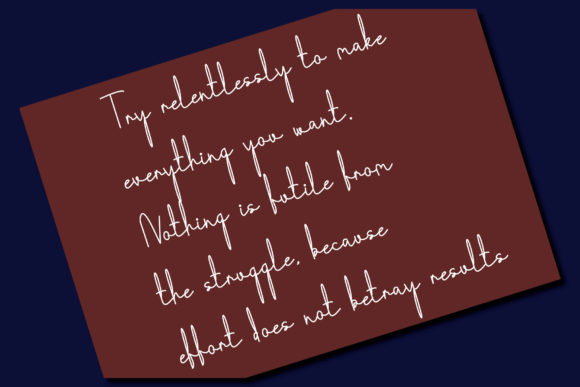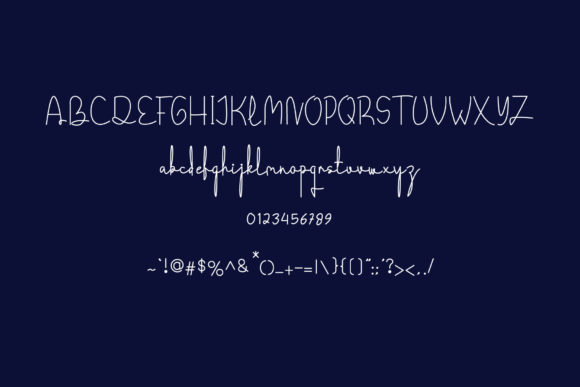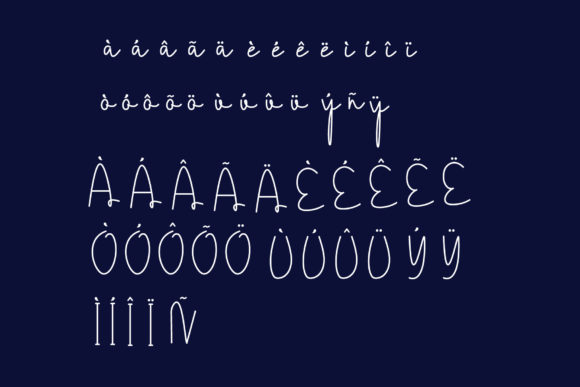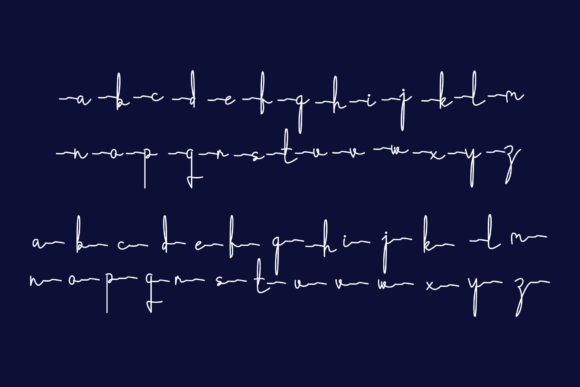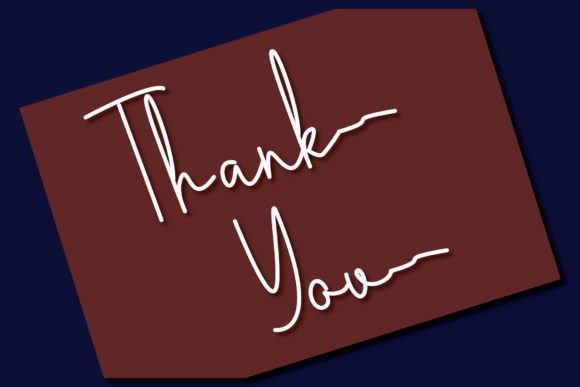
Introduction to Saved Font
Have you ever been working on a creative project, pouring your heart and soul into it, only to find the perfect font to tie everything together? That’s exactly what happened to me when I stumbled upon the Saved Font. Its unique handwritten style was like a breath of fresh air, adding a touch of personality to my design.
As a designer, I know how valuable it is to have high-quality design resources at your fingertips. That’s why I’m excited to share with you the Saved Font, a clean and quirky font that’s perfect for logos, branding, social media, and crafty DIY projects. With its PUA encoding, you’ll have access to all the glyphs and swashes you need to bring your designs to life.
Whether you’re working on a free download or a paid project, the Saved Font is a versatile design resource that’s sure to impress. Its transparent background makes it easy to use on any design, and its unique style will set you apart from the crowd. So why settle for a generic font when you can have a high-quality, one-of-a-kind design element like the Saved Font?
Saved Font
- Unique, hand-crafted design with intricate details and subtle textures, adding a touch of sophistication to any creative project.
Honest Review: Saved Font
As a designer, I’m always on the lookout for high-quality design resources to enhance my creative projects. Saved Font has caught my attention with its impressive collection of fonts, and I’m excited to share my honest review.
- What works well: ✨ The font library is extensive, with a wide range of styles and weights to choose from. I particularly appreciate the transparency in background options, which makes it easy to integrate with my designs.
- What works well: ✨ The font quality is top-notch, with clear and legible typography that elevates my designs to the next level.
However, I do have a few reservations:
- ⚠️ The font selection can feel overwhelming, making it difficult to choose the perfect font for my project.
Saved Font
What is Saved Font?
Saved Font is a valuable design resource that allows you to download and use high-quality fonts for your creative projects. With its transparent background, you can easily customize your designs and make them stand out.
How to Use Saved Font
Tips for Getting the Most Out of Saved Font
To get the most out of Saved Font, try experimenting with different font sizes, colors, and styles. You can also use the font in combination with other design elements, such as graphics and images, to create a visually appealing design.
Saved Font is perfect for a variety of creative projects, including logos, business cards, and social media graphics. It’s also a great resource for designers who want to create high-quality designs without breaking the bank. With Saved Font, you can download a free version of the font and use it in your next project.